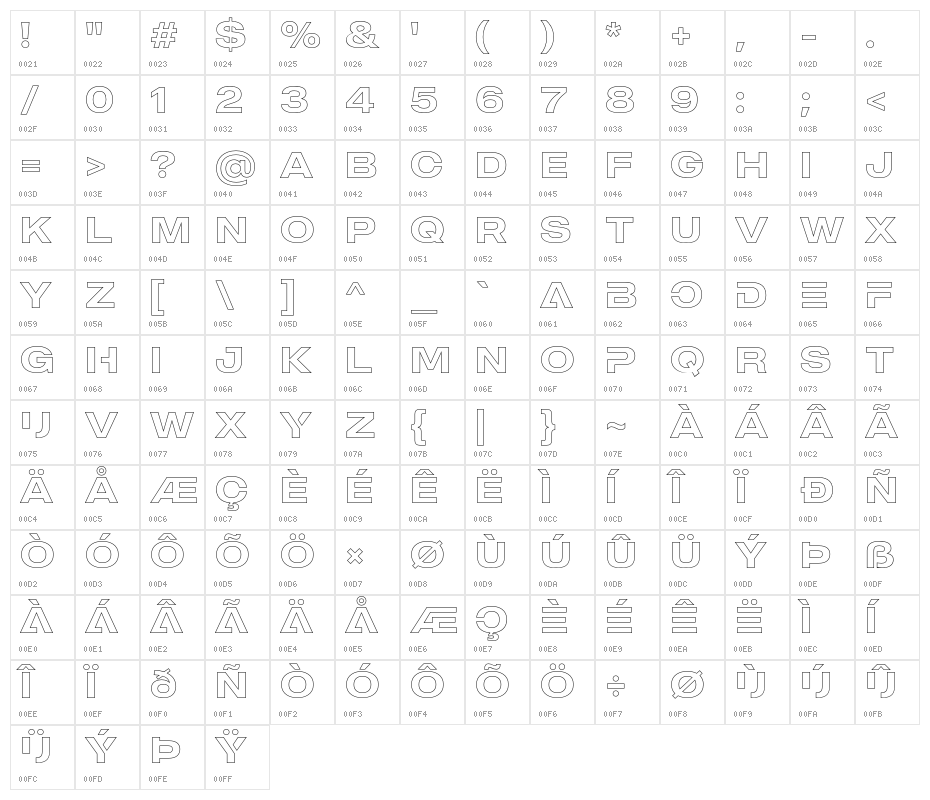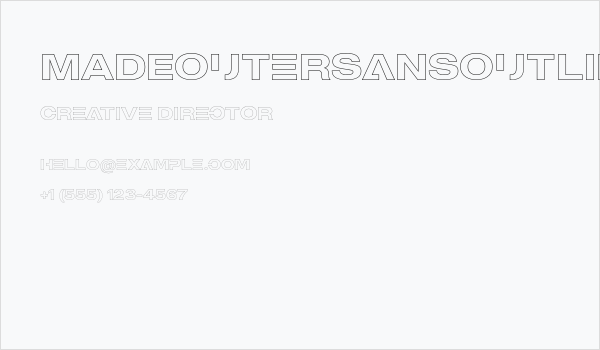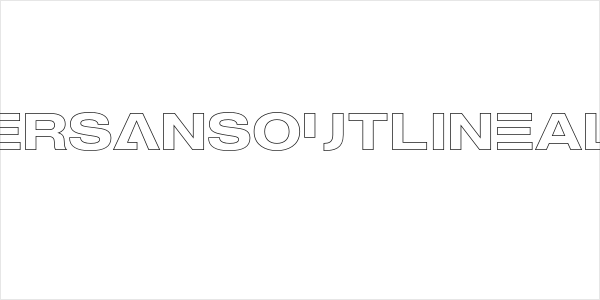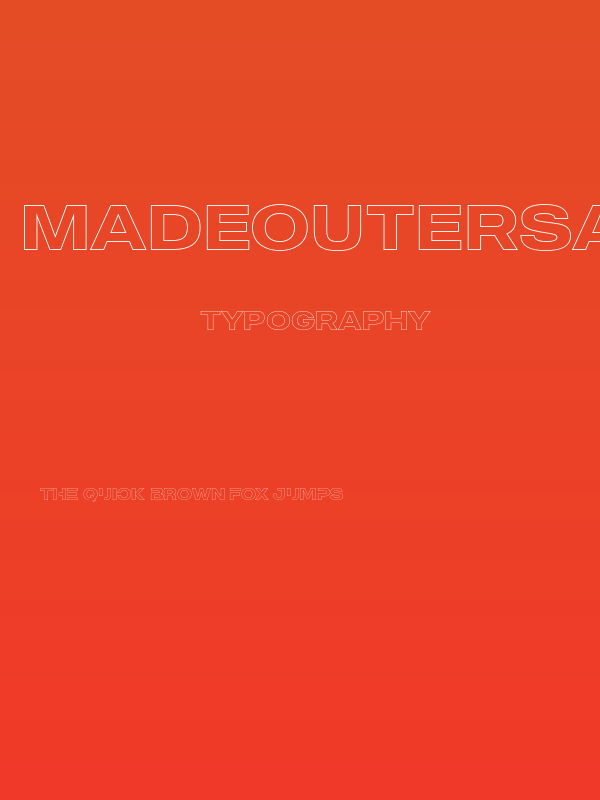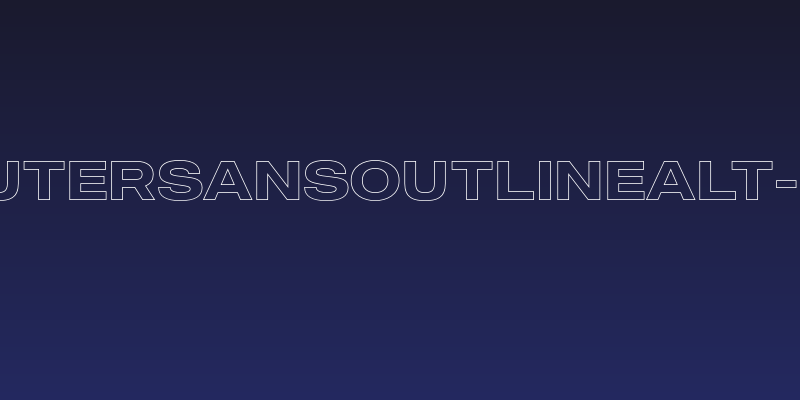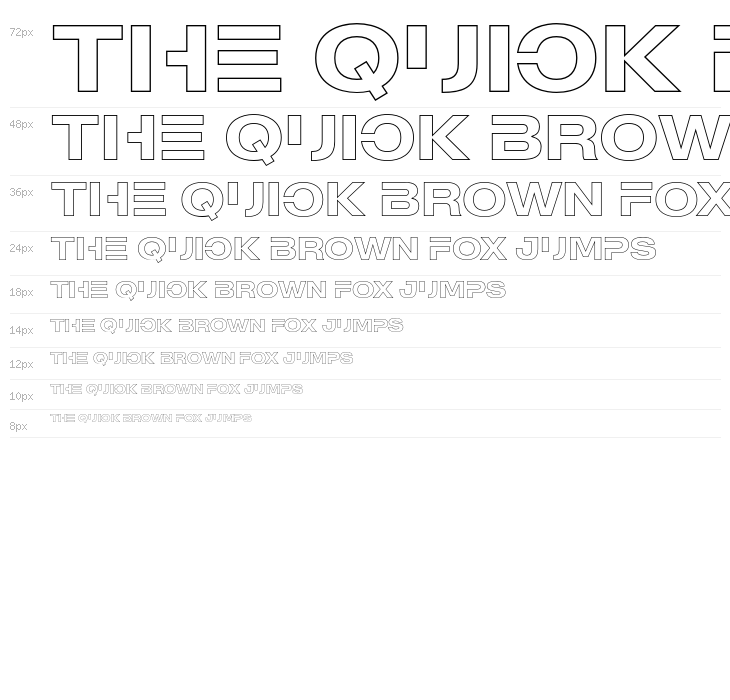
MADEOuterSansOutlineAlt-Medium Font
MADEOuterSansOutlineAlt-Medium Description
This font features a modern, geometric sans-serif style with an outline design that gives it a unique and contemporary look. The characters are bold and well-defined, with clean lines and a uniform stroke width that creates a balanced and harmonious appearance. The uppercase and lowercase letters maintain a consistent height and width, providing a cohesive and structured feel. The numerals and special characters are designed to match the overall aesthetic, ensuring versatility across various applications. The font's outline style adds a touch of creativity and can be used effectively in designs that require a standout, eye-catching element.
| Proposed Projects | Ideal for branding, headlines, posters, and digital media where a modern and distinctive look is desired. |